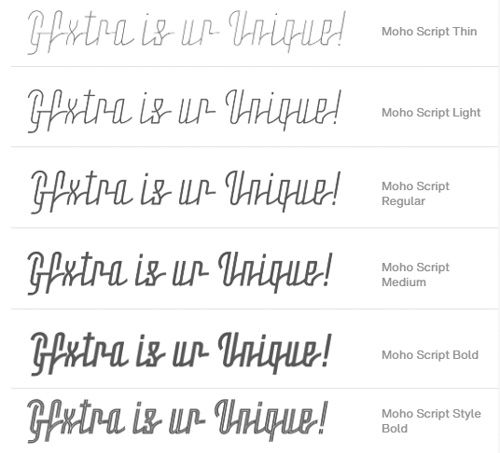
- Moho Script introduces a decorative modern geometric of Japanese, sometimes german flavor for an unconventional script. It breaks the mold of the usual fonts to create a new visual impact of absolute contemporaneity with a retro touch. Moho Script, as all typefaces of this extended family, comes in five weights and an inline style, and it’s been provided with a complete set of glyphs for languages ??of the Eastern and Western Europe. With the OpenType feature Swash you can make words with letter “t” that overlap to achieve what no meet in others typefaces. Moho Script is a perfect font for headlines display, menus, deals, logos, labels, outdoor advertising and publishing design, great for architecture, fashion, music, aviation and social affairs.